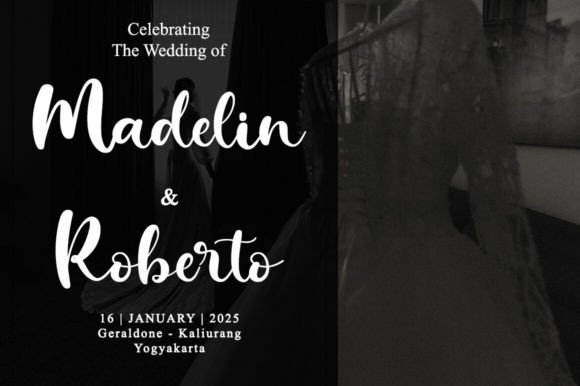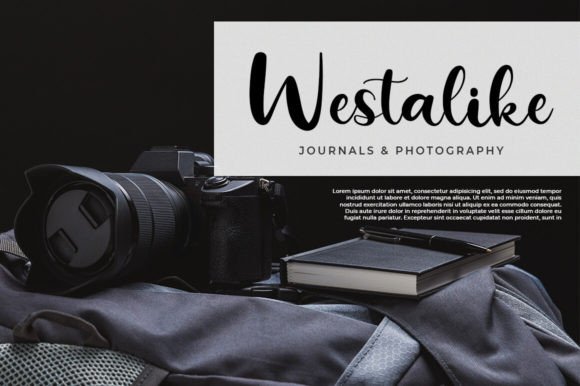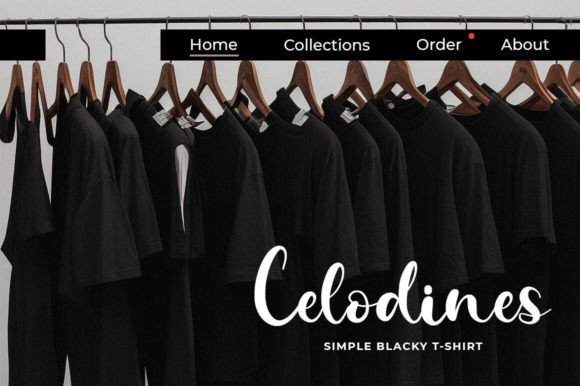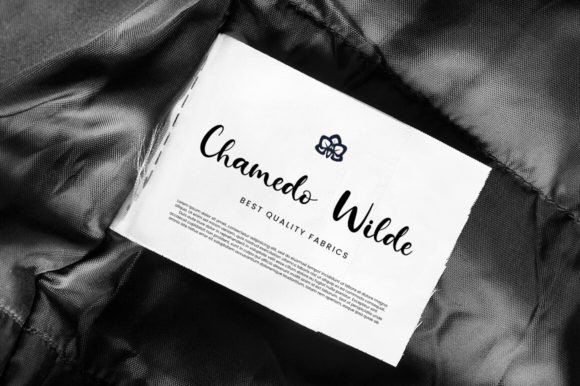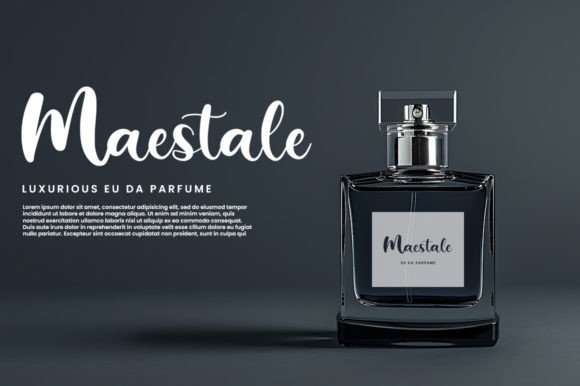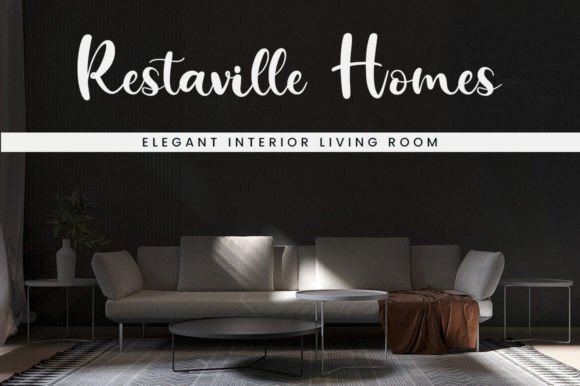
Introduction to Ramones Font Font
Fonts play a crucial role in design, and the Ramones Font font is a typeface that brings both character and versatility to any project. Whether you’re working on a branding project, a website, or a print design, the Ramones Font font offers a unique style that can elevate your work.
The Ramones Script offers gorgeous typographic perfect for many different projects such as logos & branding, invitations, stationery, wedding designs, social media posts, advertisements, product packaging, product designs, labels, photography, watermarks, special events or anything that needs handwriting taste.
The Ramones Script offers gorgeous typographic perfect for many different projects such as logos & branding, invitations, stationery, wedding designs, social media posts, advertisements, product packa
The Ramones Font font is more than just a typeface – it’s a design tool that helps you communicate your message with style and clarity. Its unique character set and versatile design make it suitable for a wide range of applications, from elegant invitations to bold headlines.
With its carefully crafted letterforms and balanced proportions, the Ramones Font font ensures readability and visual appeal across all mediums.
The Ramones Font font stands out with its unique design, exceptional readability, and versatility across various design applications.